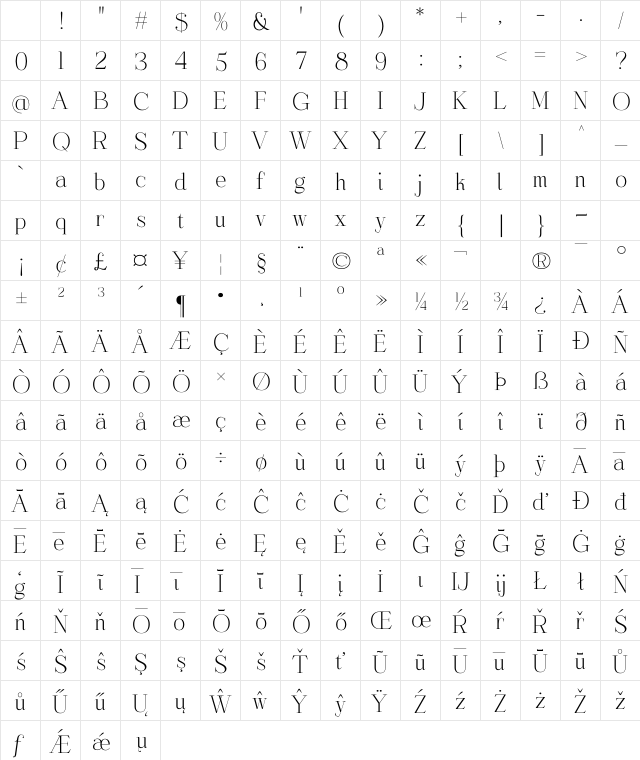
Complete Bhinacle Regular glyph index. Displaying only characters natively supported by Bhinacle Regular font.
Bhinacle is a composed and adaptable typeface that performs quietly and consistently across a wide range of design contexts.